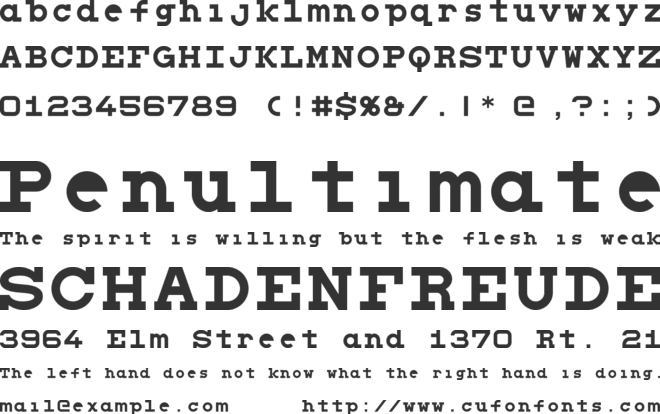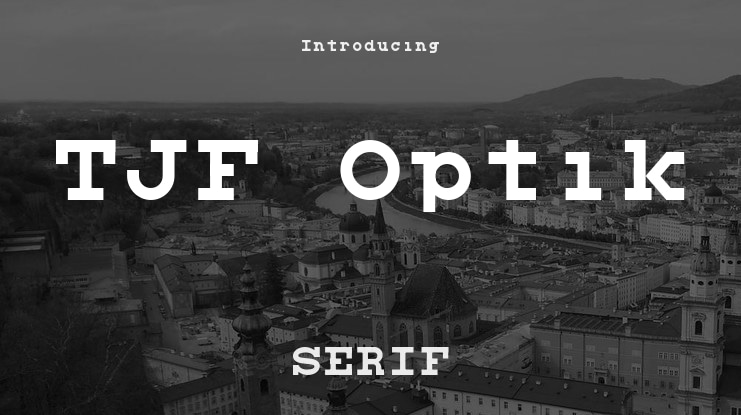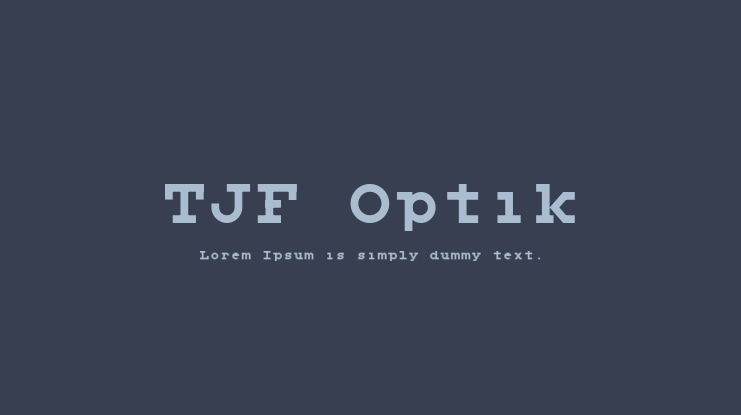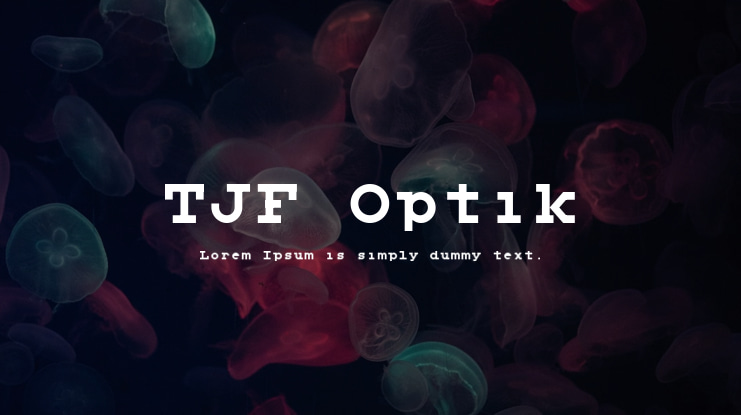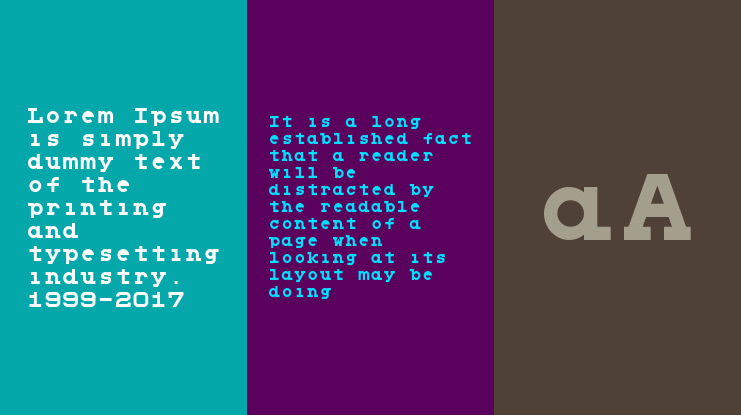
TJF Optik Font Family
The TJF Optik mini-superfamily draws inspiration from routine visits to the doctor's office for biannual checkups. You know, those moments when you have to read out the letters on the chart with one eye closed. TJF Optik is influenced by charts with slab-serif letters designed by Herman Snellen, while TJF Optik Sans is inspired by charts with grotesque letters created by Doctor Louise Sloan. The letter "E" in Optik Sans is derived from the spinning E charts, and so on. All the letters in both fonts were crafted on a 20x20 grid, although most letters adhere to a 5x5 framework. Each letter occupies a square, but with Stylistic Set 1, proportional alternatives are available, transforming the font from monospace to Triospace. Optik Sans also offers this feature, albeit without the wider variants, resulting in a duospaced appearance.